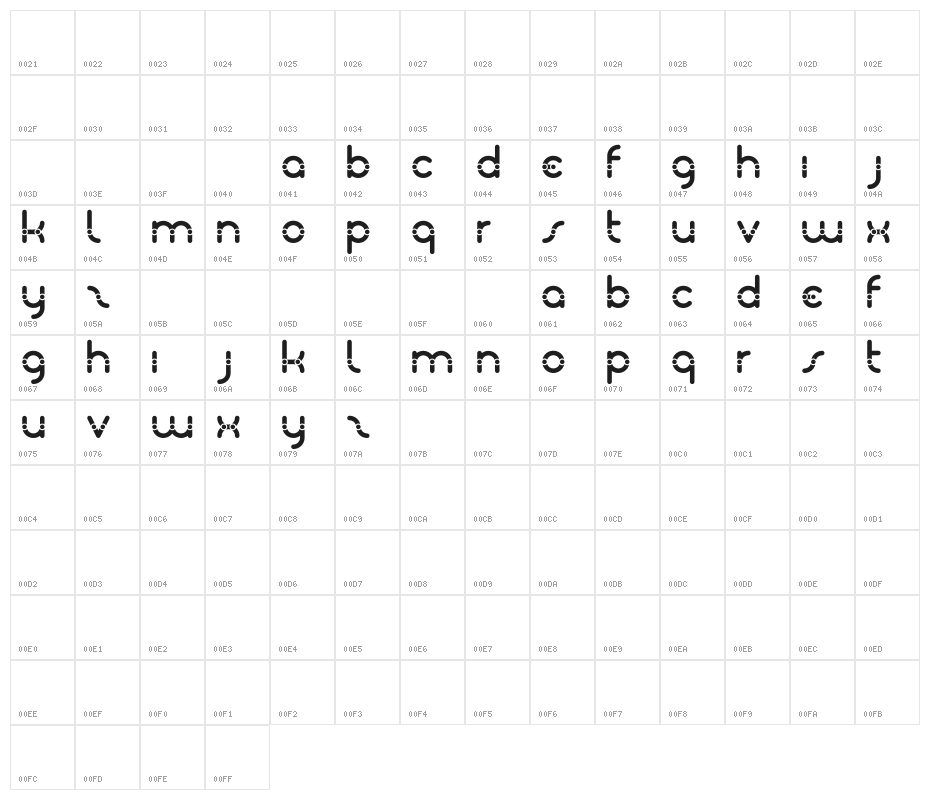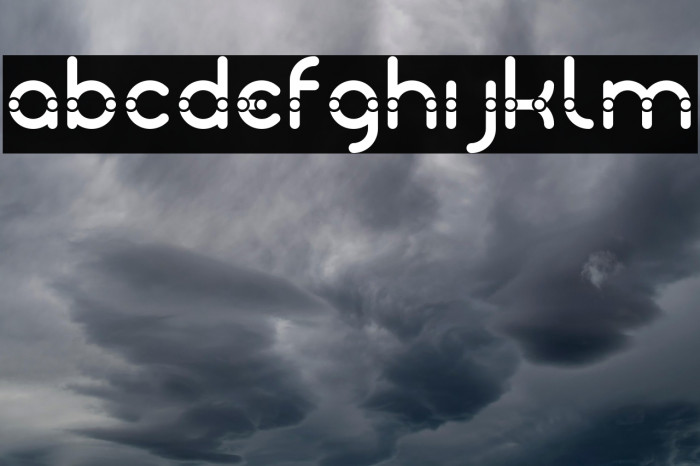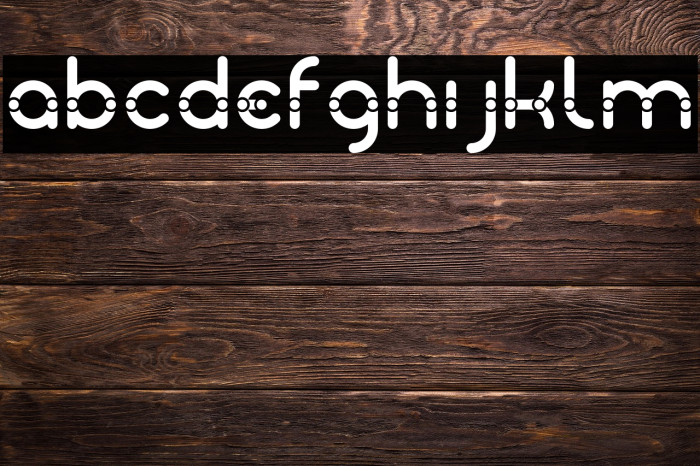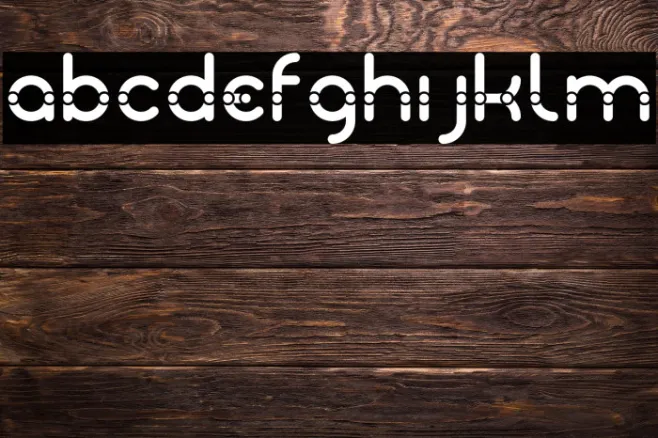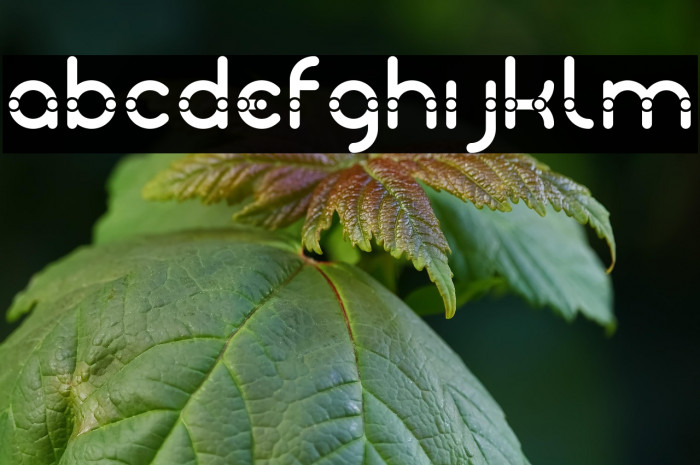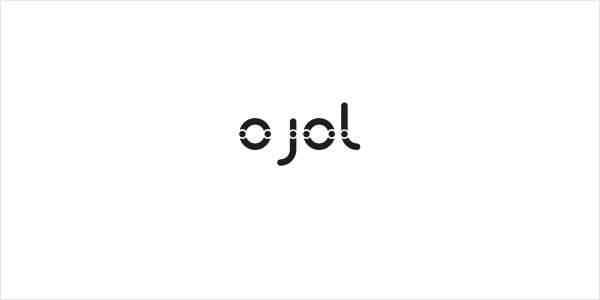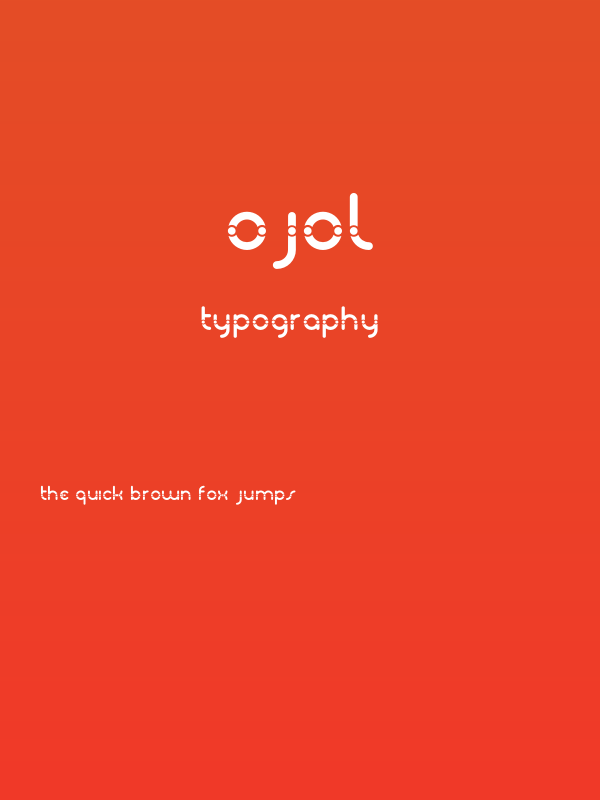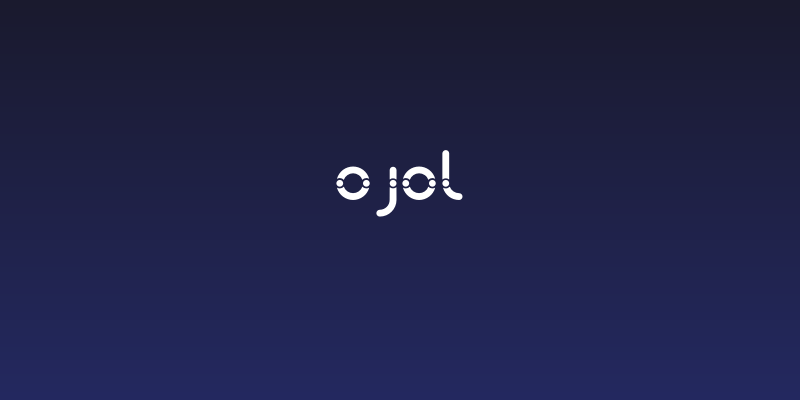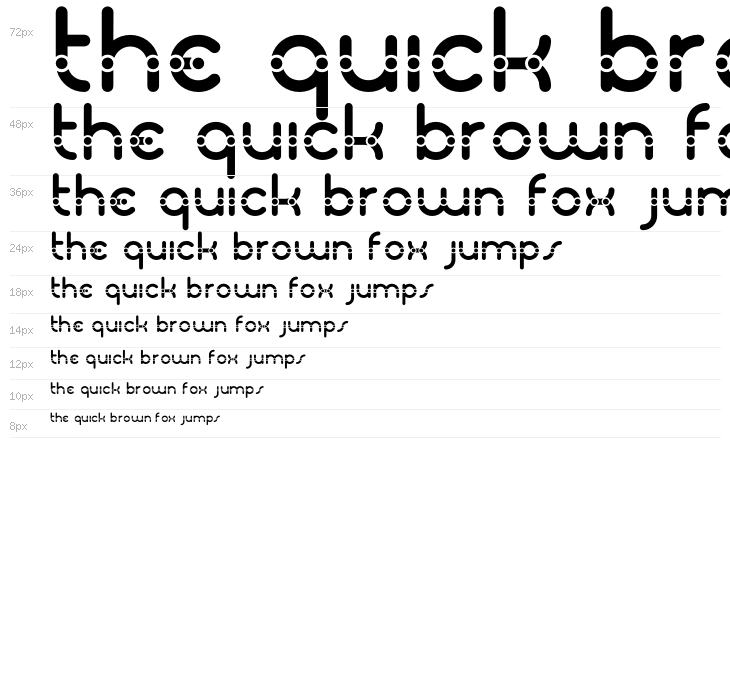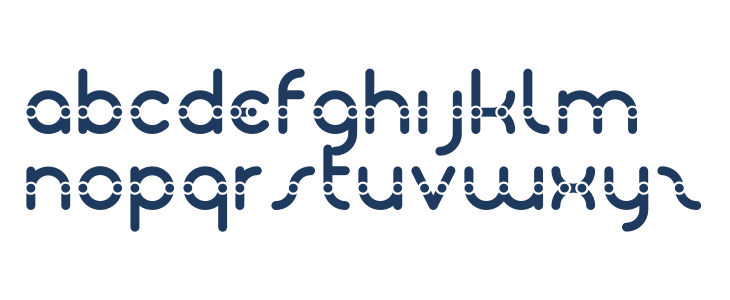
ojol Font
ojol Description
This font features a unique and playful design with circular cutouts in each character, creating a dotted line effect that runs through the middle of the letters. The rounded, sans-serif style gives it a modern and approachable feel, while the consistent use of dots adds a decorative and whimsical touch. The characters are evenly spaced, maintaining a clean and organized appearance. This font is particularly eye-catching and would stand out in creative projects that require a fun and engaging typeface.
| Proposed Projects | Ideal for children's books, playful branding, creative posters, and educational materials. |